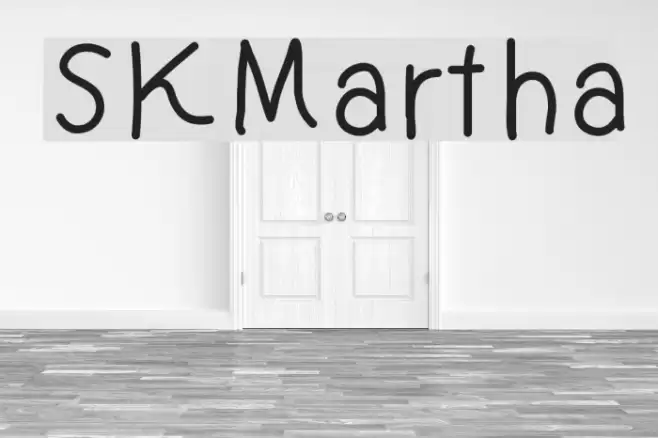
SKMartha Font
SKMartha Description
This font exhibits a playful and casual handwritten style, characterized by its irregular strokes and whimsical curves. The letters have a natural, organic feel, with varying heights and widths that give it a lively appearance. The uppercase and lowercase letters maintain a consistent style, while the numerals and special characters complement the overall aesthetic. The strokes are moderately thick, providing a balanced contrast that enhances readability while maintaining a friendly and approachable look. This font is ideal for projects that require a personal touch or a sense of informality.
A playful, handwritten font with irregular strokes and whimsical curves from Uncategorized fonts.
- Proposed Projects: Ideal for greeting cards, children's books, casual invitations, and playful branding.
- Overall Style: Casual
- Use Case: Headlines, Informal text, Creative projects